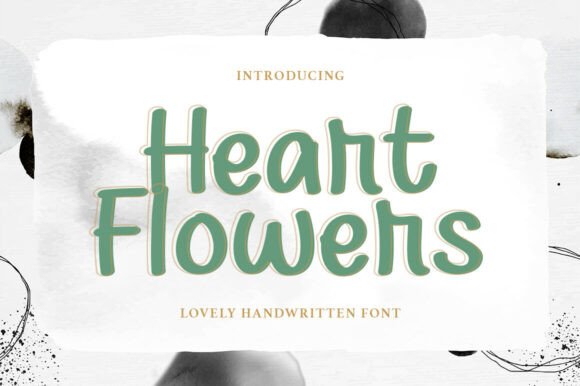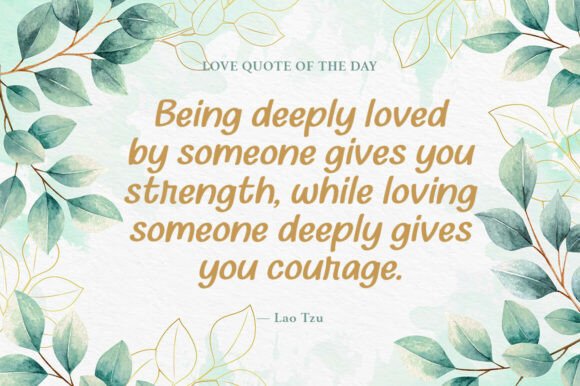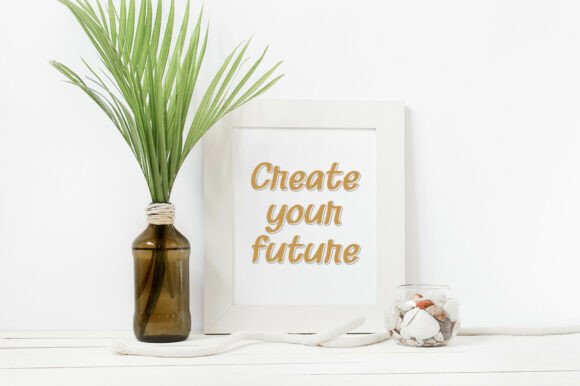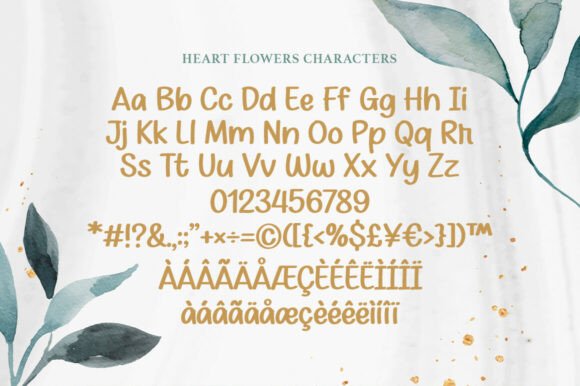
Heart Flowers Font: Cute Handwritten Typeface for Cricut & DIY
About the Heart Flowers Font
Get ready to be inspired by Heart Flowers Font, a fresh and dynamic typeface for modern creators. Heart Flowers!
A new, fresh, and modern hand-lettered font with decorative characters and a dancing baseline. It is so beautiful on invitations, such as handicrafts, greeting cards, branding materials, business cards, quotes, posters, and more design concepts.
Heart Flowers Font’s playful, yet sophisticated nature makes it ideal for headlines, short-form text in branding materials, and eye-catching posters. Its decorative elements shine in invitations and greeting cards, adding a touch of handmade charm. However, the dancing baseline and decorative characters make it unsuitable for body text or UI elements requiring high legibility.
For a balanced aesthetic, pair Heart Flowers with a clean sans-serif like Open Sans for body copy or a classic serif such as Garamond for a more formal feel. Consider a simple geometric sans-serif for a modern contrast, or a delicate script font for added elegance, depending on the desired overall mood.
The font exudes a friendly, celebratory personality, best suited for brands associated with joy, creativity, and personal expression. Avoid using it for projects requiring seriousness or corporate formality.
Heart Flowers Font Usage Examples
Heart Flowers Font Example